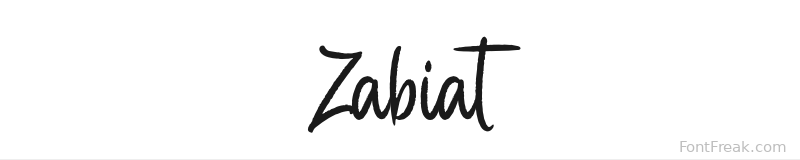
Zabiat
About Zabiat
Zabiat, designed by Kong Font, is a stunning display font that falls under the category of handwritten styles. This font showcases a unique blend of elegance and casual flair, making it a versatile choice for various design projects. The visual characteristics of Zabiat include a medium stroke weight with smooth curves and a slight contrast that adds depth to each letter. The spacing is well-balanced, allowing for legibility while maintaining a stylish appearance. Decorative elements, such as playful swashes and a slightly organic feel, contribute to its charm and character.
Zabiat is perfect for a range of creative applications. It shines in wedding invitations, where its graceful style can convey romance and sophistication. Additionally, it is an excellent choice for movie posters, helping to create an engaging visual narrative that captures attention. Restaurant menus can benefit from Zabiat's artistic touch, making dishes seem more appealing through its inviting appearance. Content creators will find it useful for social media graphics, enhancing posts with a distinctive and personal flair. Graphic designers and small business owners alike can leverage this font to make their branding stand out.
What sets the Zabiat font apart is its ability to bridge the gap between artistry and functionality. It captures the essence of handwritten typography while remaining easy to read. The overall aesthetic is both modern and timeless, appealing to a wide audience looking for something unique yet approachable. With Zabiat font free download available, designers can effortlessly incorporate this captivating typeface into their projects, enriching their visual storytelling and enhancing their creative expressions.